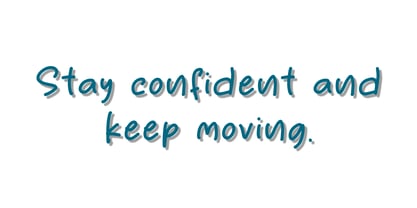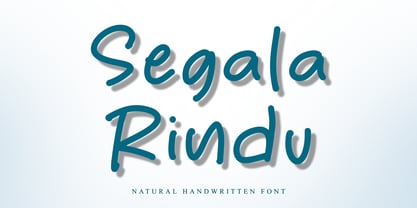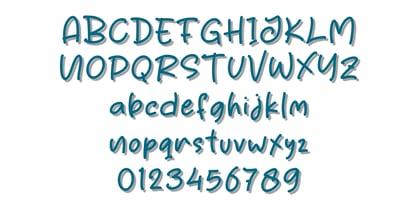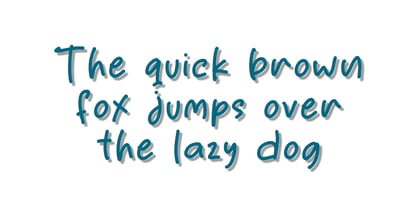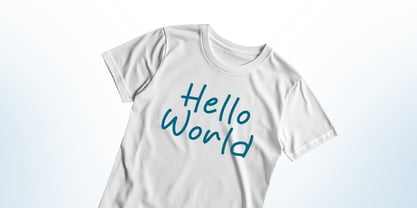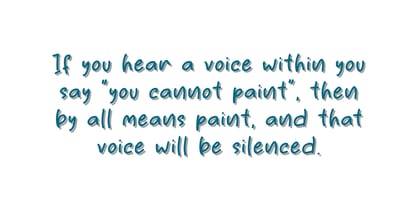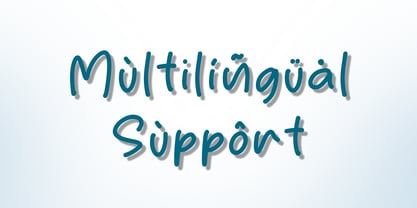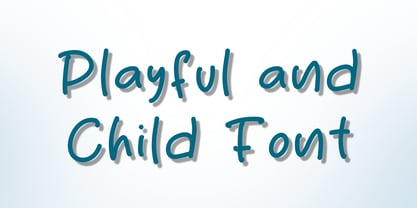
Segala Rindu
by Letterafandi Studio
The Segala Rindu Font Family was designed by Ahmad Afandi and published by Letterafandi Studio. Segala Rindu contains 2 styles and family package options. More about this family
Segala Rindu is inspired by the playful and innocent strokes of children’s handwriting. It features soft, uneven lines, rounded shapes, and a carefree style that brings a sense of joy and authenticity to every design. The font captures the spontaneity and imagination of childhood, making it perfect for kids-related projects, educational materials, storybooks, packaging, and fun branding. Its friendly and approachable look adds warmth and personality, while still remaining clear and easy to read. This font is ideal for anyone looking to create a cheerful, youthful, and heartwarming visual impression.
Designers: Ahmad Afandi
Foundry: Letterafandi Studio